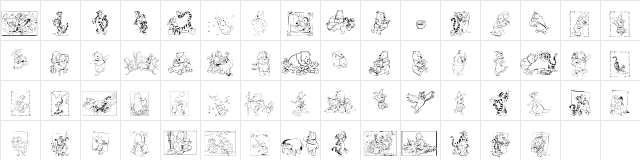
Complete 001 Disney's Pooh2 Regular glyph index. Displaying only characters natively supported by 001 Disney's Pooh2 Regular font.
001 Disney's Pooh2 is a composed and adaptable typeface that performs quietly and consistently across a wide range of design contexts.